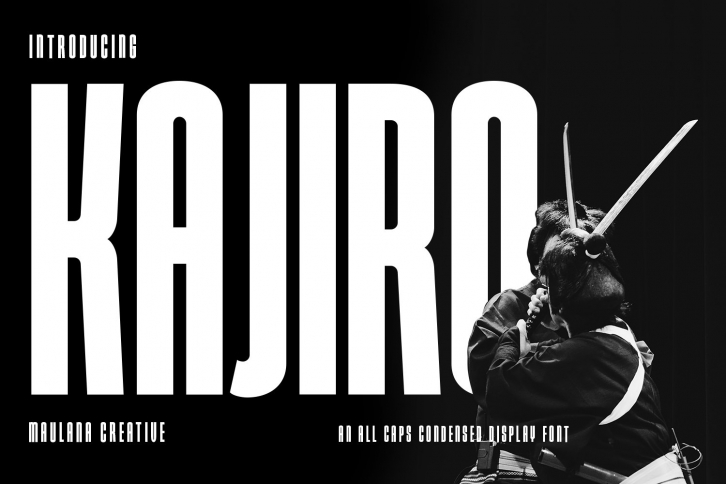
Kajiro Sans Condensed Display is a trendy and unique font with an authentic style. It was designed by Maulana Creative and it's a great choice for creative people who need such a font. It was released on June 18, 2022 and the file size is 14.99 MB. Kajiro Sans Condensed Display will add an organic vibe to any design idea!